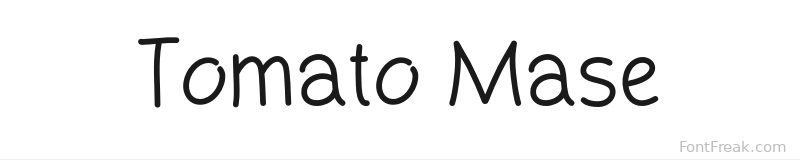
Tomato Mase
The Tomato Mase font, designed by MJType in 2023, is a delightful display typeface that blends playful charm with a touch of elegance. This font falls into the decorative category, characterized by its unique, whimsical strokes and inviting curves. The stroke weight varies subtly, lending a sense of movement and joy to the typography. The spacing is well-balanced, ensuring that each letter stands out while maintaining a cohesive flow. The decorative elements of Tomato Mase, reminiscent of hand-drawn letters, contribute to its approachable aesthetic, making it perfect for various creative projects.
Tomato Mase shines in use cases that call for a warm and friendly tone. It is ideal for wedding invitations, where its lighthearted style can convey joy and celebration. Additionally, this font works wonderfully for restaurant menus, especially those featuring casual dining or gourmet experiences, as it enhances the overall dining atmosphere. Graphic designers might find it suitable for branding materials, where an inviting and memorable impression is essential. Furthermore, content creators can utilize Tomato Mase for social media graphics and promotional materials, ensuring their content stands out in crowded feeds.
The target audience for Tomato Mase includes graphic designers, small business owners, and content creators who are looking for a font that captures attention while remaining approachable. This font can help elevate various projects, making it an essential addition to any designer’s toolkit.
What truly sets Tomato Mase apart is its ability to balance whimsy and readability, making it versatile across different applications. The Tomato Mase font free download offers a unique opportunity for creatives to enhance their work with a font that combines personality with functionality, ensuring that every project has that extra touch of charm.